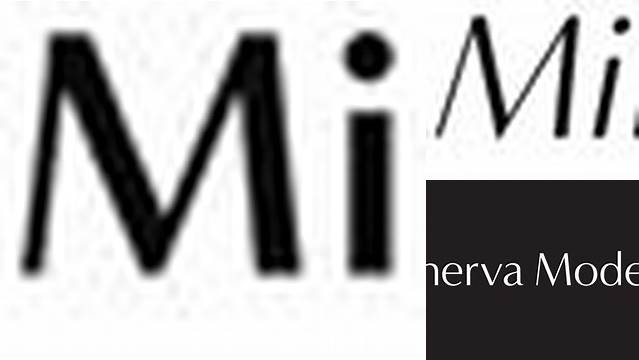
1. What is Minerva Modern Font?
So, what exactly is Minerva Modern? Well, it's a stunning typeface that blends contemporary aesthetics with classic elegance. Think clean lines, balanced curves, and a touch of sophistication. This makes it incredibly versatile, suitable for a wide range of design applications. Whether you're working on a branding project, designing a website, or crafting eye-catching marketing materials, Minerva Modern can add that polished and professional touch you're looking for. It’s a font that speaks volumes without being overly loud, a perfect balance for modern design needs. Minerva Modern’s appeal lies in its simplicity; it’s not cluttered with unnecessary frills, making it easy to read and visually appealing. The font family often includes various weights, such as light, regular, bold, and italic, giving you flexibility in your design work. This adaptability is what makes Minerva Modern a go-to choice for many designers seeking a reliable and stylish font.
2. Key Features of Minerva Modern
One of the reasons Minerva Modern stands out is its impressive feature set. Let's break down some of the key elements that make this font a designer's dream. First up, its legibility is top-notch. The clean, well-defined characters ensure that your text is easy to read, no matter the size or context. This is crucial for maintaining clarity in your designs, especially in digital formats. Then there's its versatility. Minerva Modern works beautifully in headlines, body text, logos, and more. It's a true all-rounder! The various weights and styles within the font family further enhance its adaptability, allowing you to create visual hierarchy and add emphasis where needed. The modern aesthetic is another major draw. Minerva Modern embodies the principles of contemporary design, with its minimalist approach and emphasis on clean lines. This gives your projects a fresh and up-to-date feel. In addition to its visual qualities, Minerva Modern is also known for its technical soundness. It's typically well-kerned, ensuring even spacing between characters, and optimized for both print and digital use. This attention to detail makes it a reliable choice for professional design work.
4. Using Minerva Modern in Graphic Design
So, you've got Minerva Modern downloaded and installed – fantastic! Now, let's talk about how to use it effectively in your graphic design projects. First off, consider the overall tone and style of your design. Minerva Modern's clean and contemporary look makes it a great fit for projects that aim for a modern, minimalist, or professional feel. Think branding materials for tech companies, sleek website designs, or elegant invitations. When it comes to typography, pairing Minerva Modern with other fonts can create visual interest. Try combining it with a contrasting serif font for body text to create a balanced and readable layout. For headlines and titles, Minerva Modern shines on its own, commanding attention without being overwhelming. Experiment with different weights and styles within the font family to add emphasis and create a hierarchy. For example, using bold for headings and regular for body text can guide the reader's eye and improve readability. Color also plays a crucial role in how your typography is perceived. Minerva Modern works well with a wide range of color palettes, but consider using contrasting colors to ensure your text stands out against the background. Ultimately, the key to using Minerva Modern effectively is to experiment and find what works best for your specific project. Don't be afraid to try different combinations and variations until you achieve the desired look and feel.
5. Minerva Modern for Web Design
Minerva Modern isn't just for print; it's also a fantastic choice for web design. Its legibility and clean lines make it ideal for on-screen reading, ensuring a pleasant user experience. When using Minerva Modern on the web, consider its performance and loading times. Opt for web font formats like WOFF and WOFF2, which are optimized for the web and help reduce file sizes. You can easily convert fonts to these formats using online tools or font converters. Another important aspect of web typography is responsive design. Make sure your font scales well across different screen sizes and devices. Using relative units like em and rem can help ensure that your text remains readable on everything from desktops to smartphones. Also, pay attention to line height and letter spacing to improve readability. A comfortable line height and generous letter spacing can prevent text from feeling cramped and overwhelming. When it comes to web design, accessibility is key. Choose font sizes and colors that provide sufficient contrast and make your text easily readable for users with visual impairments. Tools like contrast checkers can help you ensure your designs meet accessibility standards. With its versatility and readability, Minerva Modern can be a valuable asset in your web design toolkit.
6. Minerva Modern in Branding
When it comes to branding, choosing the right font is crucial, and Minerva Modern can be a powerful asset. A font is more than just letters; it's a visual representation of your brand's personality and values. Minerva Modern's clean and contemporary aesthetic makes it a great fit for brands that want to project a modern, sophisticated, and trustworthy image. Think tech startups, creative agencies, or professional services. In branding, consistency is key. Using Minerva Modern across your logo, website, marketing materials, and other brand assets helps create a cohesive and recognizable brand identity. Consider the different weights and styles within the Minerva Modern family to create visual hierarchy and add emphasis to different elements of your brand. For example, you might use a bold weight for your logo and a lighter weight for body text on your website. Pairing Minerva Modern with a well-chosen color palette can further enhance your brand's visual identity. The font's versatility allows it to work well with a variety of colors, but consider colors that align with your brand's personality and values. In addition to visual elements, your brand's tone of voice also plays a role in how your font is perceived. Minerva Modern's clean and professional look lends itself well to a confident and authoritative tone. By carefully considering all these factors, you can leverage Minerva Modern to create a strong and memorable brand identity.
7. Pairing Minerva Modern with Other Fonts
The magic of typography often lies in the art of font pairing, and Minerva Modern plays well with others! Combining different fonts can add visual interest and create a more dynamic and engaging design. However, it's essential to choose fonts that complement each other, rather than clash. When pairing Minerva Modern, consider its clean and contemporary aesthetic. It works well with a variety of font styles, but some pairings are particularly effective. One classic combination is pairing Minerva Modern with a serif font for body text. This creates a balanced and readable layout, with the serif font adding a touch of warmth and tradition to the modern Minerva Modern. Examples of serif fonts that pair well with Minerva Modern include Times New Roman, Georgia, and Garamond. Another approach is to pair Minerva Modern with a contrasting sans-serif font. This can create a more modern and edgy look, but it's important to choose a sans-serif font that has a distinct personality without being overwhelming. Examples of sans-serif fonts that pair well with Minerva Modern include Open Sans, Lato, and Montserrat. When pairing fonts, consider factors like x-height, weight, and style. Fonts with similar x-heights tend to work well together, as do fonts with contrasting weights. Also, be mindful of the overall tone and style of your design. If you're aiming for a classic and elegant look, a serif pairing might be the way to go. If you're after a more modern and minimalist feel, a sans-serif pairing could be a better choice. Ultimately, the best way to find the perfect font pairing is to experiment and see what works best for your specific project. Don't be afraid to try different combinations until you achieve the desired look and feel.
8. Minerva Modern for Headlines and Titles
When it comes to headlines and titles, Minerva Modern truly shines. Its clean lines and modern aesthetic make it a fantastic choice for grabbing attention and conveying a clear message. A well-chosen headline font can make a big difference in the overall impact of your design, and Minerva Modern delivers on both style and readability. One of the strengths of Minerva Modern is its versatility. It works well in both large and small sizes, making it suitable for a wide range of headline applications. Whether you're designing a website, a poster, or a magazine layout, Minerva Modern can command attention without being overwhelming. Consider using different weights and styles within the Minerva Modern family to create visual hierarchy in your headlines. A bold weight can be used for main headlines to make them stand out, while a regular or light weight can be used for subheadings to provide additional context. When using Minerva Modern for headlines, pay attention to kerning and letter spacing. Proper kerning ensures that the letters are evenly spaced, while letter spacing can be adjusted to create a more open and airy feel or a tighter and more compact look. Also, think about the overall tone and style of your design. Minerva Modern's contemporary look makes it a great fit for modern and minimalist designs, but it can also be used effectively in more traditional designs when paired with the right fonts and colors. Experiment with different font sizes and colors to see what works best for your specific headline. A larger font size and a contrasting color can help your headline stand out, while a smaller font size and a more subtle color can create a more understated and elegant look. With its versatility and readability, Minerva Modern is a reliable choice for headlines and titles that make a statement.
9. Minerva Modern for Body Text
While Minerva Modern excels in headlines and titles, it's also a capable choice for body text, especially when used thoughtfully. Legibility is paramount when it comes to body text, and Minerva Modern's clean, well-defined characters ensure a comfortable reading experience. However, it's important to consider the context and the overall tone of your design. Minerva Modern's modern aesthetic may not be the best fit for every project, but in the right circumstances, it can create a sleek and contemporary feel. When using Minerva Modern for body text, pay attention to font size and line height. A comfortable font size and generous line height can improve readability and prevent eye strain. Also, consider the length of your paragraphs. Shorter paragraphs are generally easier to read than long, dense blocks of text. Pairing Minerva Modern with a contrasting font for headlines can create visual interest and help guide the reader's eye. A classic combination is pairing Minerva Modern with a serif font for headlines, which adds a touch of elegance and sophistication. When it comes to body text, consistency is key. Stick to one font and style throughout your document or website to create a cohesive and professional look. Avoid using too many different fonts, as this can make your design feel cluttered and confusing. Color also plays a role in the legibility of body text. Choose a font color that provides sufficient contrast against the background. Black text on a white background is a classic and highly readable combination, but you can also experiment with other color combinations to create a unique look. With its legibility and modern appeal, Minerva Modern can be a great choice for body text in a variety of design projects.
10. Minerva Modern in Logos
A logo is the cornerstone of a brand's identity, and the font you choose plays a critical role in conveying the brand's personality and values. Minerva Modern's clean, contemporary aesthetic makes it a fantastic option for logos that aim for a modern, sophisticated, and trustworthy feel. When using Minerva Modern in a logo, consider the overall style and tone you want to project. The font's versatility allows it to work well in a variety of contexts, but it's important to ensure that it aligns with your brand's identity. Think about the weight and style of Minerva Modern you want to use. A bold weight can create a strong and impactful logo, while a lighter weight can convey a more delicate and refined feel. Experiment with different combinations to find the perfect fit for your brand. Color is another crucial element of logo design. Consider colors that align with your brand's personality and values, and ensure that they complement Minerva Modern's clean lines and modern aesthetic. The font's neutrality allows it to work well with a wide range of colors, so you have plenty of options to choose from. In addition to the font itself, consider the overall layout and composition of your logo. A well-designed logo is not just about the font; it's about the way the font is used in conjunction with other elements, such as symbols, icons, and spacing. A memorable logo is often simple and easy to recognize. Avoid cluttering your logo with too many elements, and focus on creating a clean and impactful design that accurately represents your brand. With its versatility and modern appeal, Minerva Modern can be a valuable asset in creating a logo that stands out and effectively communicates your brand's identity.